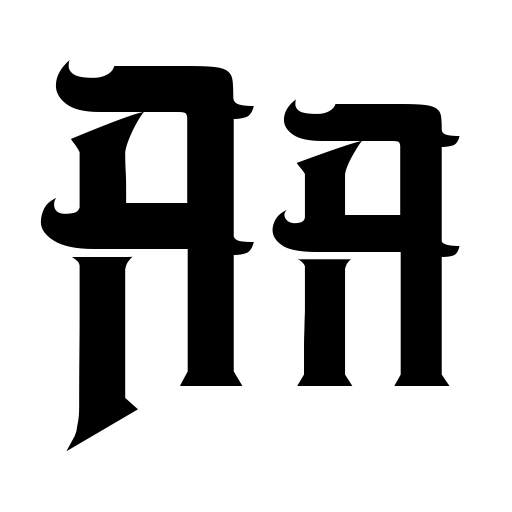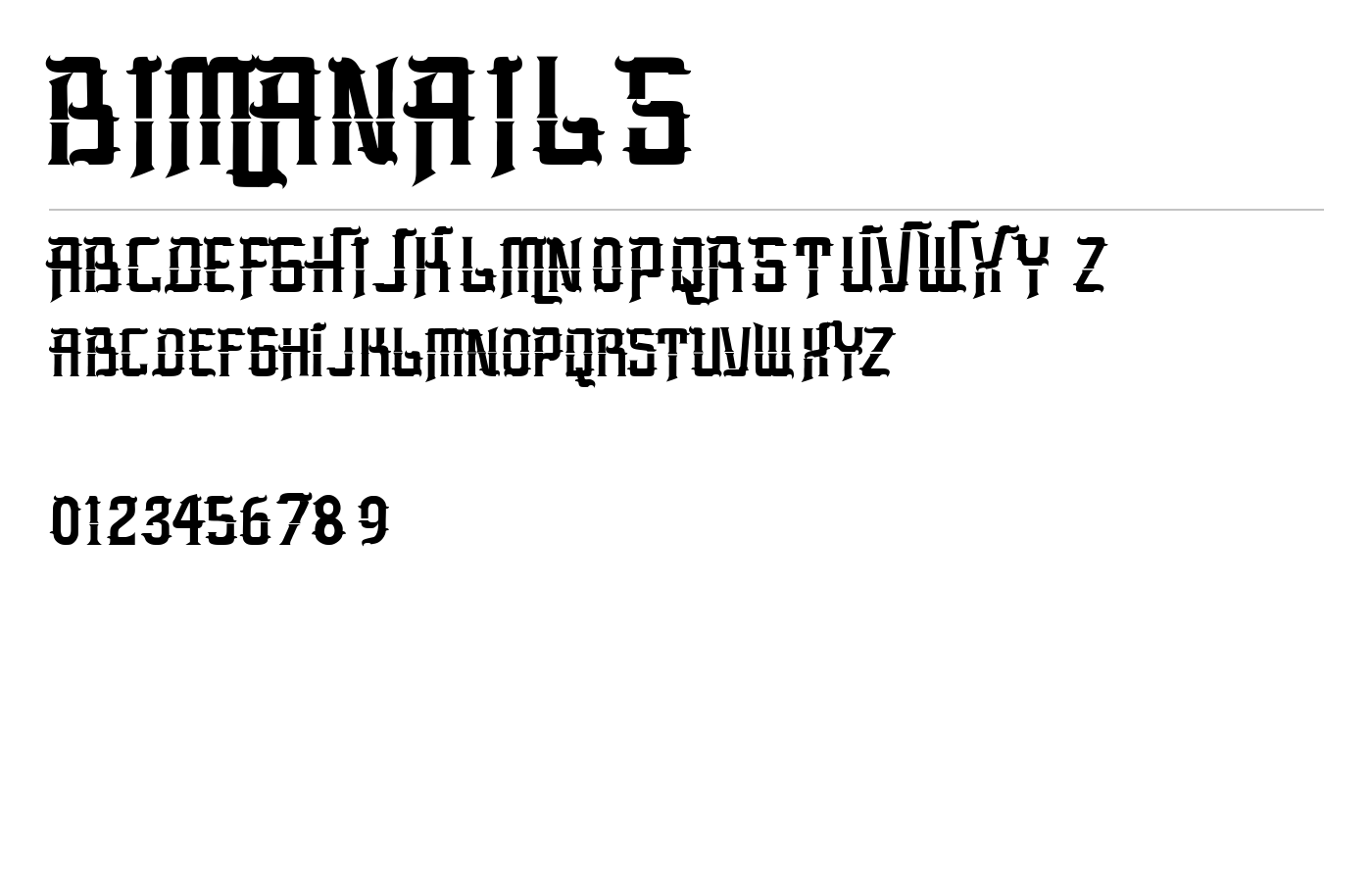
BIMANAILS is a bold, condensed serif font with a distinctive Gothic flair, featuring sharp, angular strokes and dramatic contrasts that give it a strong, edgy character. Its unique letterforms and high contrast make it perfect for impactful headlines, logos, and posters where a vintage yet striking presence is desired. This font works especially well for fashion, music, or alternative branding that seeks to convey boldness and individuality.
BIMANAILS Font
About BIMANAILS Font
| Font family | BIMANAILS Font |
| Designer | Muhammad taufiq H. |